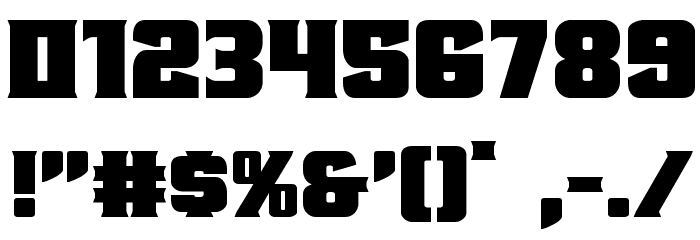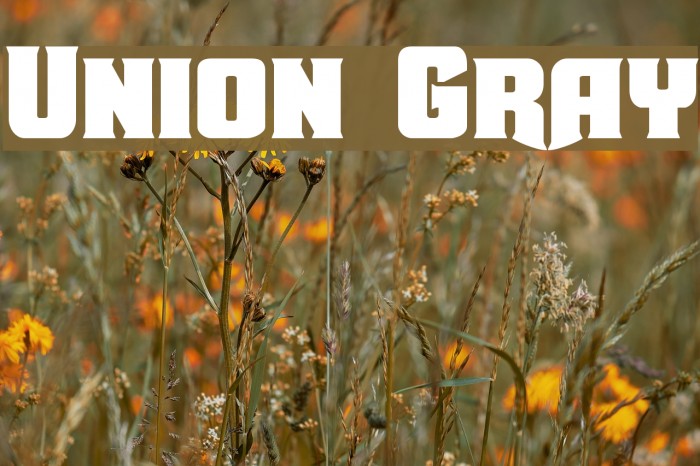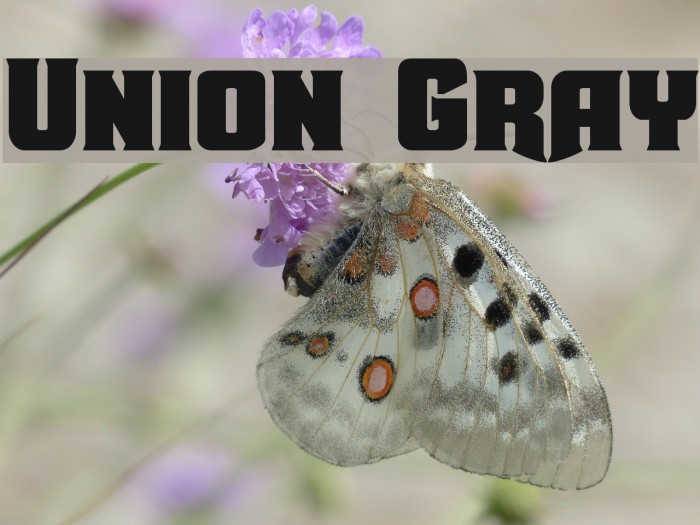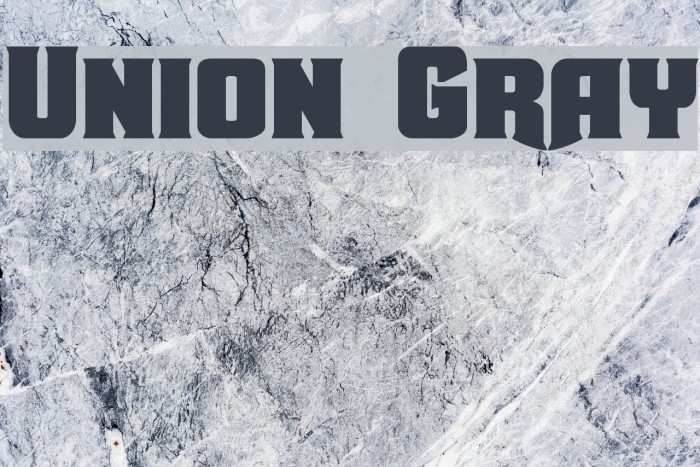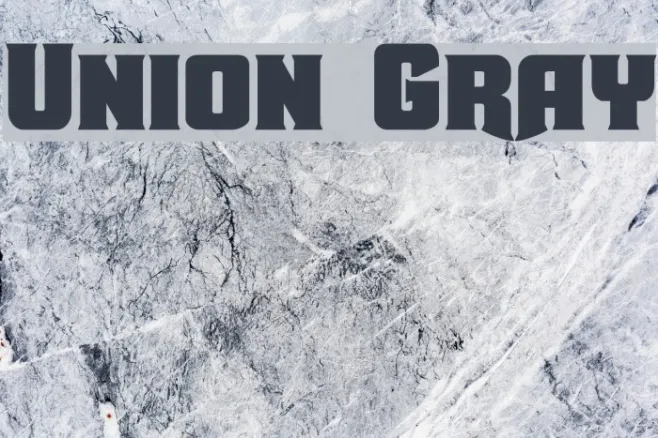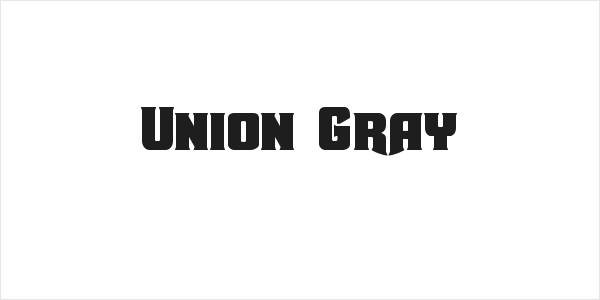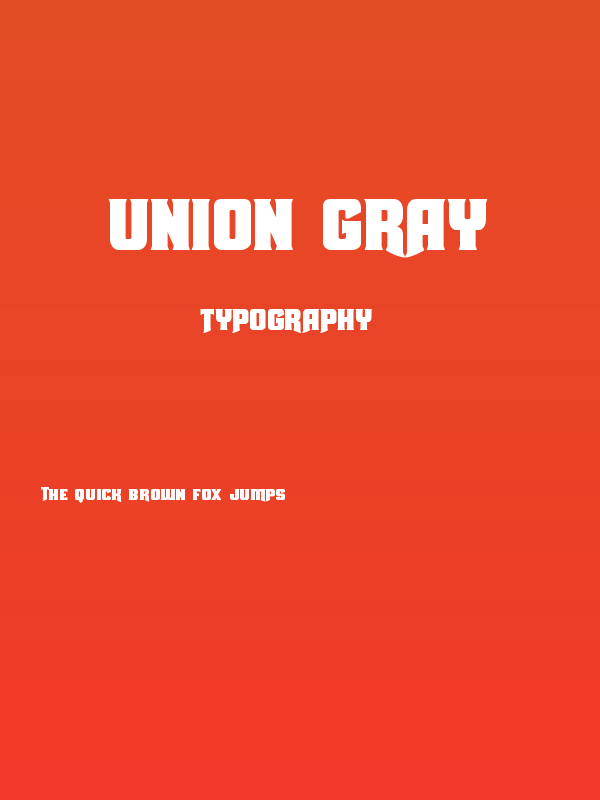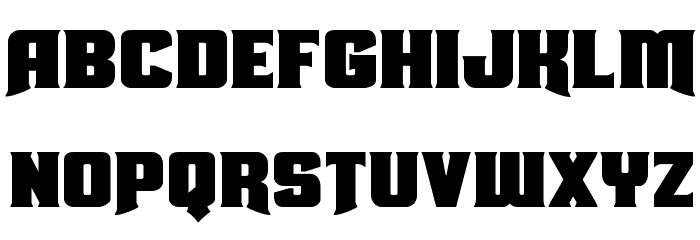
Union Gray Font
Union Gray Description
This font features a bold and striking design, characterized by its thick, blocky letterforms and sharp angles. The uppercase letters are particularly prominent, with a strong presence that commands attention. The lowercase letters maintain the same boldness, ensuring consistency throughout. The numerals are equally robust, making them suitable for impactful displays. Special characters are designed with the same bold aesthetic, ensuring they stand out. This font is ideal for projects that require a strong, authoritative look.
| Proposed Projects | Ideal for posters, headlines, branding, and any project needing a bold, impactful typeface. |